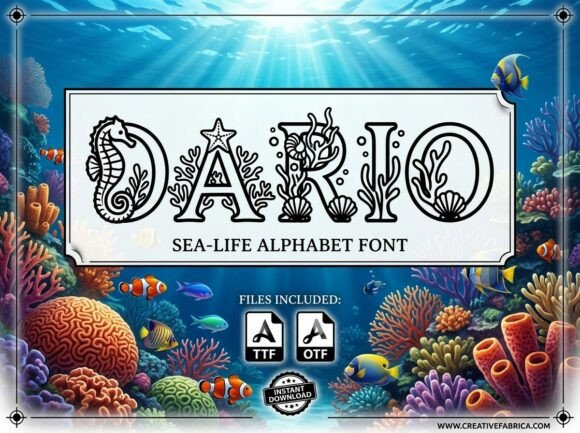
Dive into the World of Dario Font: A Captivating Aquatic Display Typeface
Are you a designer or crafter looking for a unique and captivating font to convey an oceanic and adventurous spirit? Look no further than Dario Font, a bold and imaginative aquatic display typeface that is sure to make a splash. In this article, we’ll dive into the world of Dario Font and explore its features, uses, and benefits.
Introducing Dario Font: A Sea of Imagination
Dario Font is a one-of-a-kind display typeface that embodies the essence of the ocean and its inhabitants. This font features bold, hollow letterforms that are uniquely integrated with rhythmic hand-drawn sea life, including seahorses, playful dolphins, coral branches, and delicate shells. The result is a clean, high-contrast outline that is both visually striking and full of personality.
Unique Illustrative Weight and Vibrant Personality
What sets Dario Font apart from other typefaces is its unique illustrative weight and vibrant personality. The font’s bold, hollow letterforms are perfectly balanced with the intricate hand-drawn sea life, creating a sense of movement and energy. This makes Dario Font the perfect choice for designs that require a sense of playfulness and adventure.
Ideal Uses for Dario Font
So, what are the ideal uses for Dario Font? Here are a few ideas to get you started:
- Independent Aquarium Branding: Dario Font is the perfect choice for independent aquarium branding, adding a touch of whimsy and wonder to your logo and marketing materials.
- Marine Conservation Awareness: Use Dario Font to raise awareness about marine conservation and the importance of protecting our oceans and its inhabitants.
- Nautical Children’s Book Titles: Dario Font is a great choice for nautical-themed children’s book titles, adding a sense of adventure and excitement to your cover design.
- High-Impact Social Media Headers: Make a splash on social media with Dario Font, using it to create high-impact headers that grab attention and inspire engagement.
Benefits of Using Dario Font
So, why choose Dario Font for your design project? Here are just a few benefits:
- Unique and Memorable: Dario Font is a one-of-a-kind typeface that is sure to make your design stand out and be remembered.
- Versatile: Dario Font can be used for a wide range of design projects, from branding and advertising to children’s book titles and social media headers.
- Easy to Read: Despite its bold and illustrative design, Dario Font is easy to read and understand, making it perfect for use in a variety of contexts.
Tips for Using Dario Font
Here are a few tips for using Dario Font in your design project:
- Use it Boldly: Dario Font is designed to make a statement, so don’t be afraid to use it boldly and prominently in your design.
- Experiment with Colors: Dario Font looks great in a variety of colors, so experiment with different hues and combinations to find the one that works best for your design.
- Pair it with Other Fonts: Dario Font can be paired with other fonts to create a unique and visually interesting design.
In conclusion, Dario Font is a captivating aquatic display typeface that is sure to make a splash in your design project. With its unique illustrative weight, vibrant personality, and versatility, Dario Font is the perfect choice for designers and crafters looking to convey an oceanic and adventurous spirit. So why wait? Dive into the world of Dario Font today and discover the possibilities!